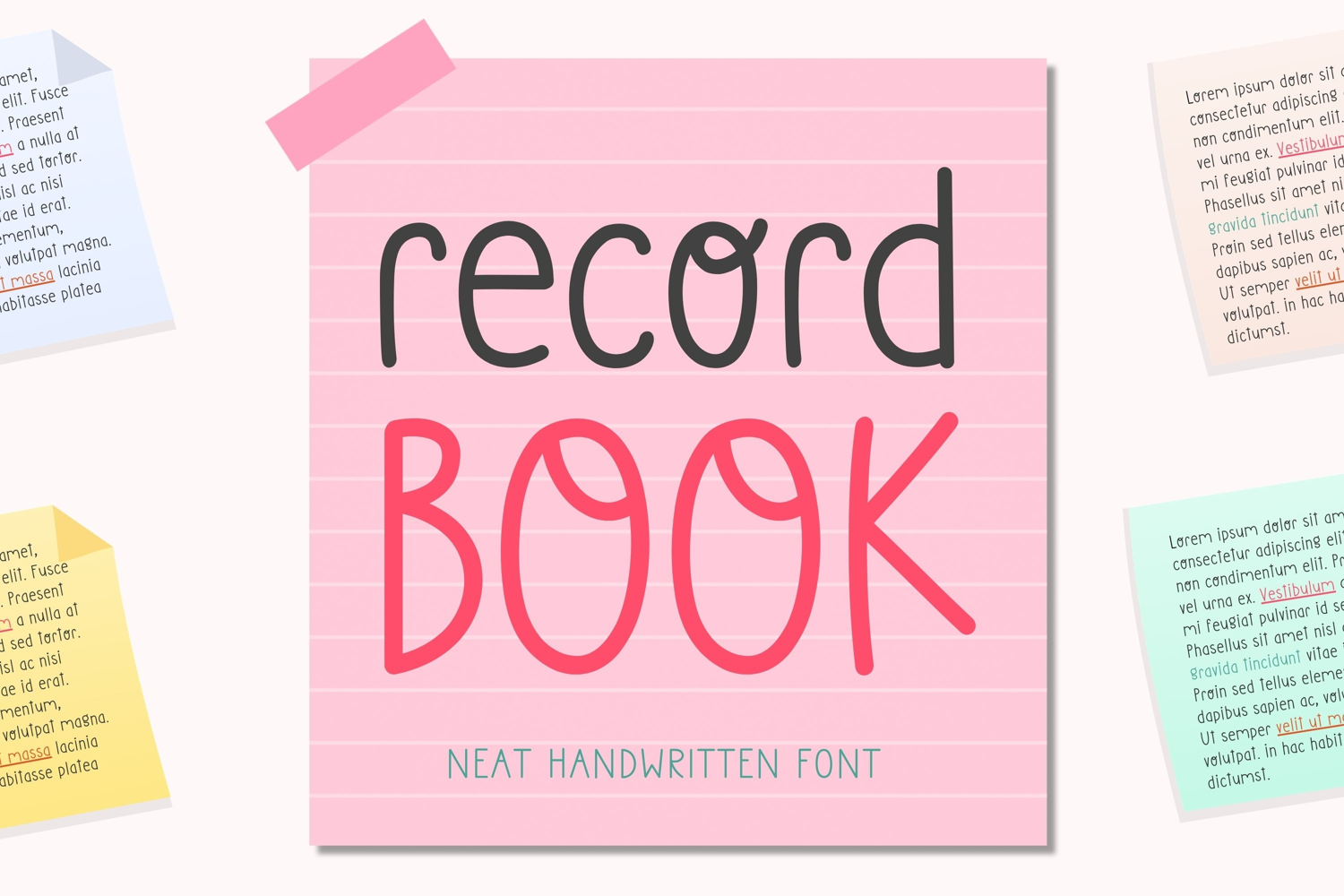
Record Book is a neat and friendly handwritten font with a clean, natural look. Its simple letterforms and easy readability make it perfect for notes, planners, journals, worksheets, classroom materials, greeting cards, social media graphics, and everyday creative projects.
This versatile handwriting typeface works beautifully for both headings and longer text. Use it to add casual touch to digital notes, printable designs, educational resources, invitations, stationery, and craft projects.